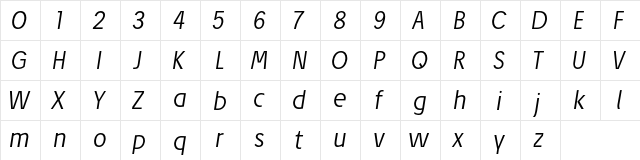
Josef Pro Light Italic Font Preview
Josef Pro Light Italic
| Foundry | Ingo Zimmermann, Augsburg. IN MEMORIAM JOSEF ZIMMERMANN |
| Designer | Ingo Zimmermann |
Design Context for Josef Pro Typeface
Josef Pro takes a measured approach to typography — its balanced proportions and neutral character make it a reliable workhorse for both digital and print work. The slanted form adds forward momentum and visual energy. The delicate stroke weight brings airiness and refinement to layouts.
Pro Tip: Use Josef Pro for emphasis, pull quotes, and subheadings where its slanted energy can add rhythm to the layout.